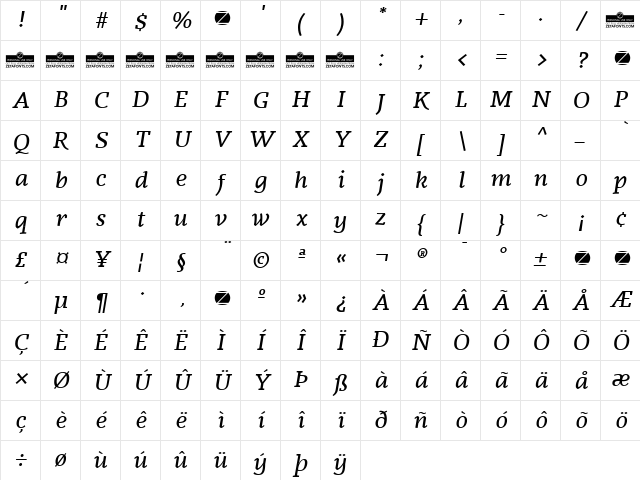
Radcliffe Text is a composed and adaptable typeface that performs quietly and consistently across a wide range of design contexts. The slanted form adds forward momentum and visual energy.
Pro Tip: Use Radcliffe Text for emphasis, pull quotes, and subheadings where its slanted energy can add rhythm to the layout.